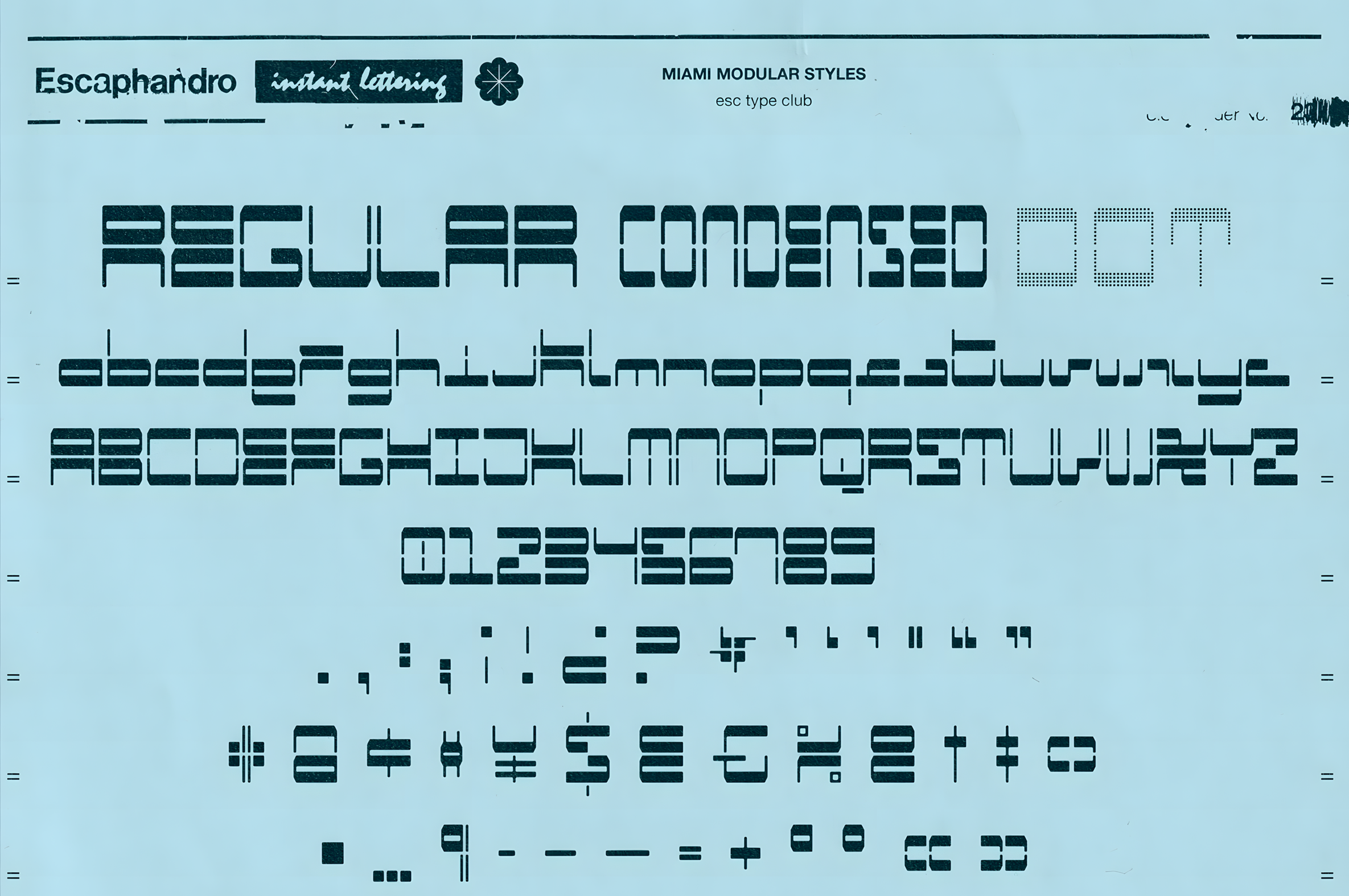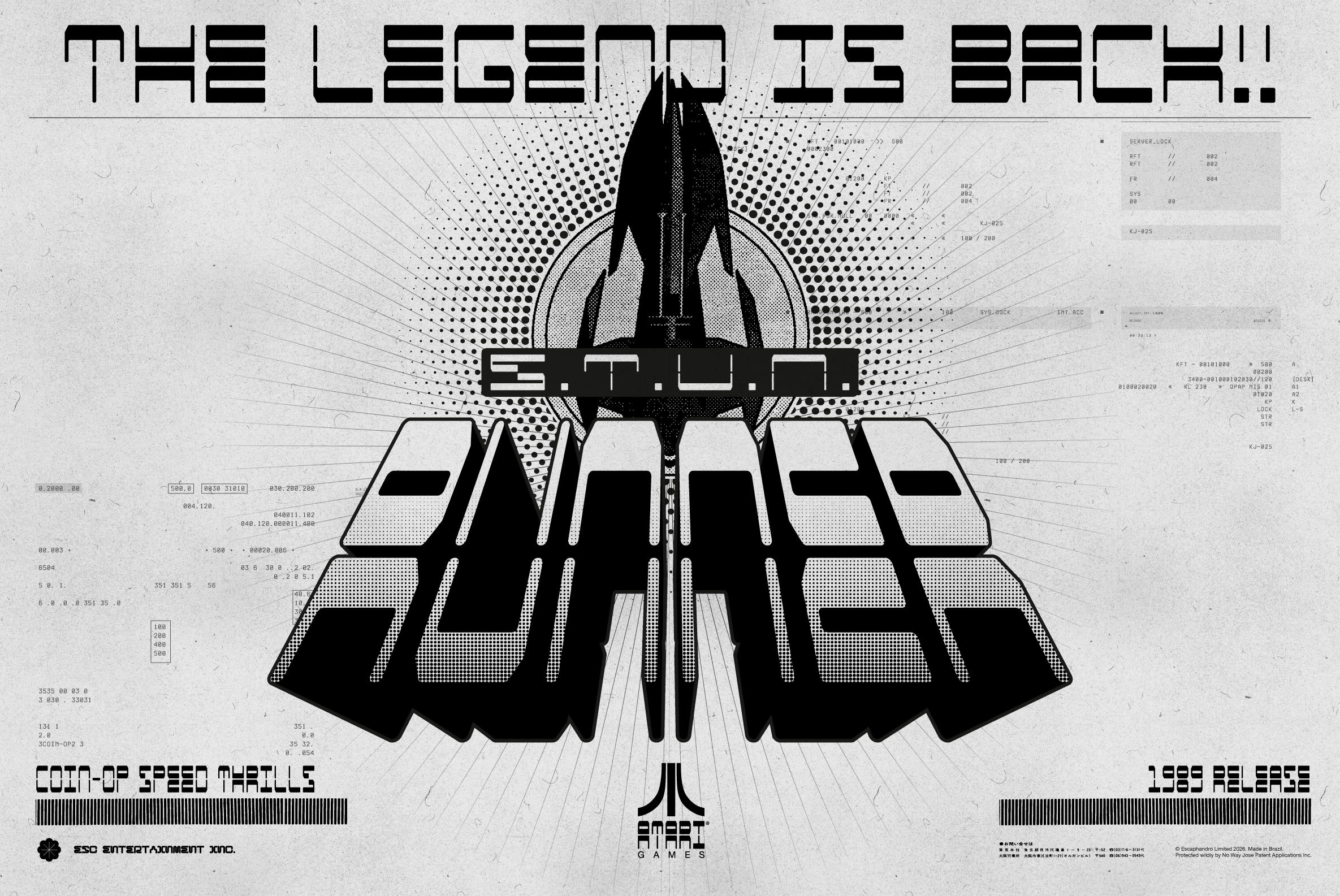
Miami Modular - Display Typeface
Rafael Nascimento
Miami Modular - Display Typeface
Miami Modular is an exercise in geometric typography from Raphael Nascimento, based on retro-futuristic sci-fi themes and modernist graphic design. Ideal for large-size applications and logotype construction.